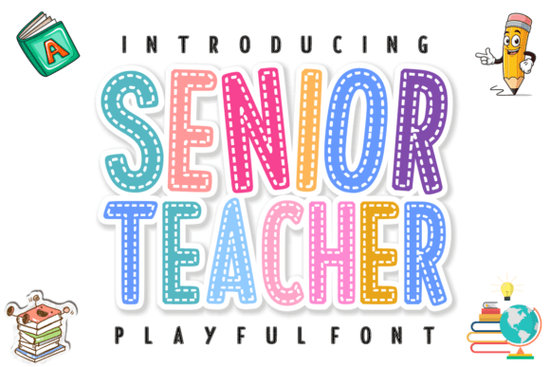
If you're looking for a display font that feels warm, approachable, and unmistakably classroom-ready, the Senior Teacher Font fits right in no extra styling needed. It’s not overly cutesy or rigidly formal; instead, it strikes a balance many educators and crafters struggle to find: professional enough for school-approved materials, playful enough for student-facing handouts or merch. The subtle stitched or dashed interior line gives it texture and charm like something you’d see on a laminated name tag or a handmade bulletin board border.
What makes Senior Teacher different from other classroom fonts?
Most “teacher-themed” fonts lean heavily into chalkboard scribbles, bubbly letters, or cartoonish exaggeration. Senior Teacher avoids those extremes. Its letterforms are bold and evenly spaced, with clean curves and consistent weight so it stays legible even at small sizes (think flashcards or planner headers). That internal dashed line isn’t just decorative; it adds visual interest without sacrificing clarity. You’ll notice it most in uppercase letters and numerals, where it reads like gentle stitching ideal for vinyl cutting or paper crafting projects where subtle detail matters.
It works especially well alongside other display fonts that share its educational vibe but offer contrast. For example, if you’re layering text for a back-to-school banner, pairing Senior Teacher with the rustic charm of School House Font creates nice visual rhythm. Or try it above a bold brush script like Temur Amorak for teacher appreciation posters clean + expressive = balanced hierarchy.
Where does it work best in real projects?
Because it’s designed for visibility and warmth, Senior Teacher Font shines in contexts where tone and readability both matter:
- Classroom resources: Worksheets, behavior charts, editable lesson plan headers, and digital slideshow titles especially when printed or projected.
- Bulletin boards & door signs: Cut from vinyl or printed on cardstock, it holds up well at larger sizes and pairs nicely with washi tape, gingham borders, or cork textures.
- Apparel and merch: Works on cotton tees, tote bags, and lanyards even at 12–16 pt sizes thanks to its sturdy letter construction and generous spacing.
- Digital stationery: Graduation announcements, thank-you cards for parent volunteers, or printable stickers for reward systems all benefit from its friendly authority.
You’ll also find it complements more energetic options like Graffiti Impact for attention-grabbing headlines (say, “FIELD TRIP DAY!”), or softens the tropical flair of Laguna Tropic in summer-themed classroom kits.
How to use it without overdoing it
Like any strong display font, Senior Teacher works best when it has room to breathe. Avoid stacking it with too many other decorative fonts in one layout. Stick to one or two type families per project and let this one carry the main message. For body text or instructions, pair it with a simple sans serif (like Open Sans or Montserrat) to keep things scannable.
Also worth noting: because of its stitched detail, it’s not ideal for very fine lines or ultra-thin cuts in Cricut or Silhouette software. Test cut at your intended size first, especially on heat-transfer vinyl or delicate paper. If you’re using it digitally, make sure anti-aliasing is set to “sharp” or “crisp” in your design app for clean edges.
For inspiration, check out how real teachers and small creative businesses use it like Senior Teacher Font in editable Canva templates or printable teacher planners sold on Etsy. Seeing it in context helps avoid assumptions about scale or tone.
A quick checklist before you download
- ✅ You need a friendly-but-polished display font not a handwriting or script style.
- ✅ Your project involves education, crafts, or teacher-focused merch (not corporate reports or legal documents).
- ✅ You’ll use it mostly for headings, labels, or short phrases not long paragraphs.
- ✅ You’re okay with a single-weight, all-caps-friendly font (no italics or light variants).
- ✅ You’ve tested how the dashed line renders at your intended output size especially for cutting machines or embroidery digitizing.
If those match up, Senior Teacher Font is likely a solid fit for your next classroom or craft project no redesigns or workarounds needed.